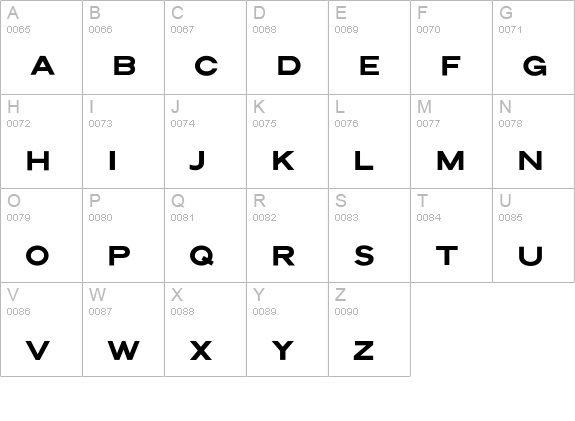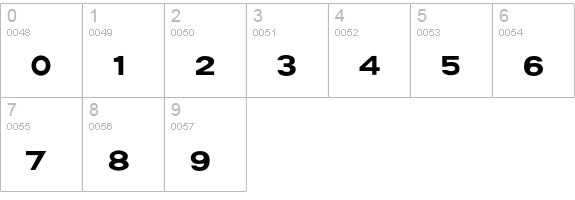
LunarOrbiter Font Details
LunarOrbiter font is a sleek and modern typeface that exudes a sense of futuristic elegance. With its clean lines and unique shapes, this font is perfect for adding a touch of sophistication to any design project. Whether you're creating a logo, poster, or website, LunarOrbiter font will make your text stand out with its contemporary aesthetic. What's even better is that LunarOrbiter font is completely free to download at FontsMarket.com. This means you can easily access this stylish font for your creative endeavors without any cost involved. Don't miss out on the opportunity to enhance your designs with the bold and captivating LunarOrbiter font - download it today and elevate your projects to new heights!